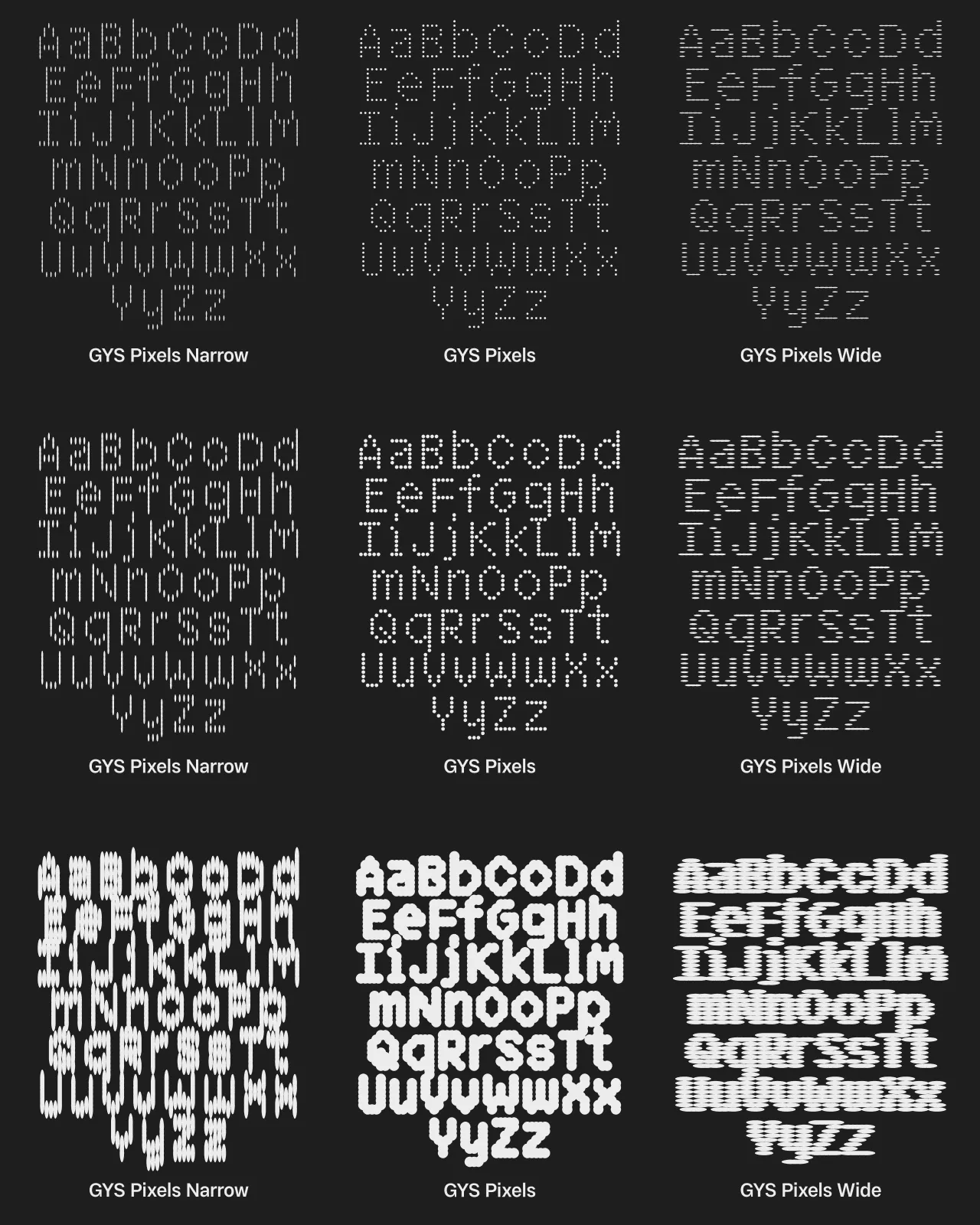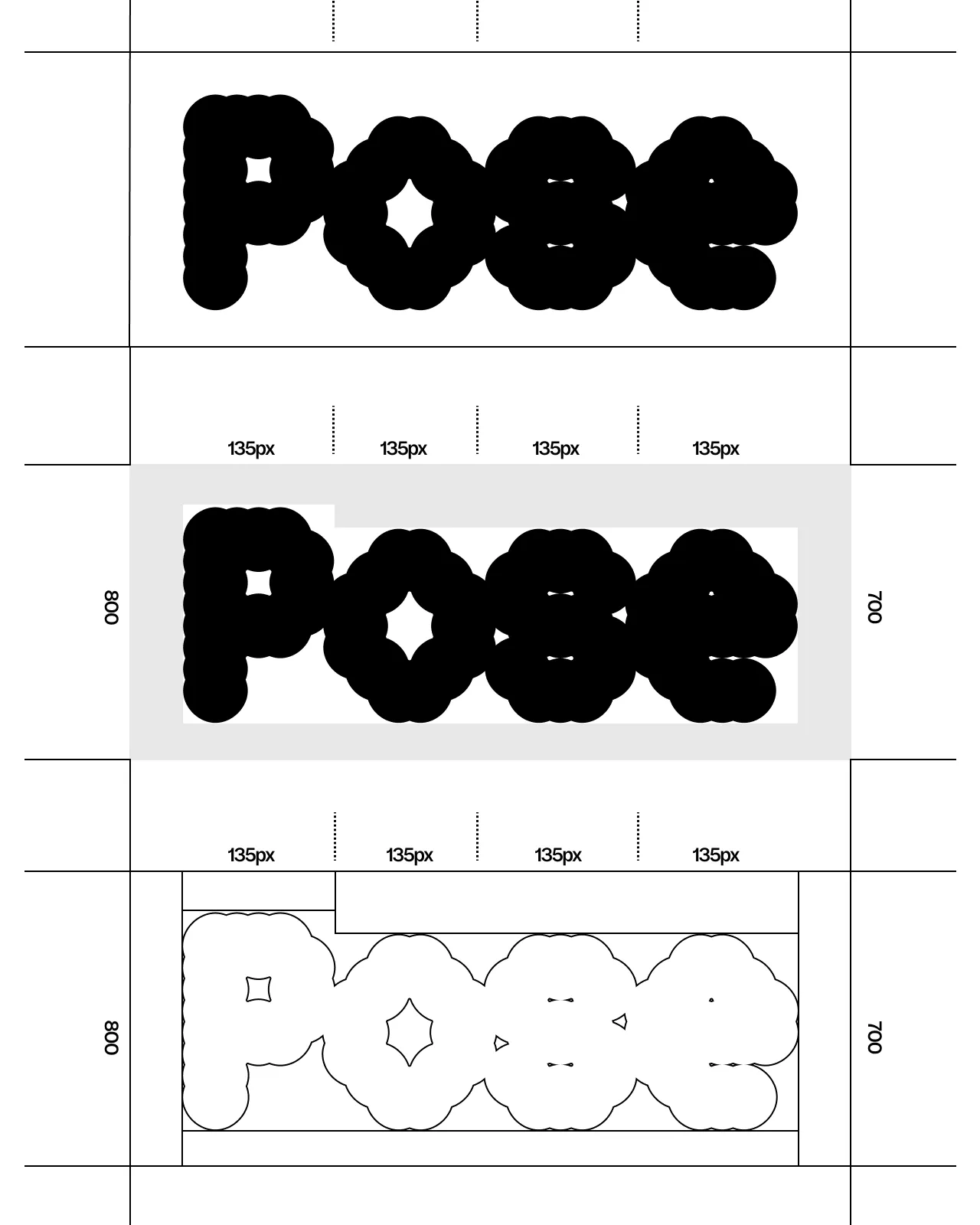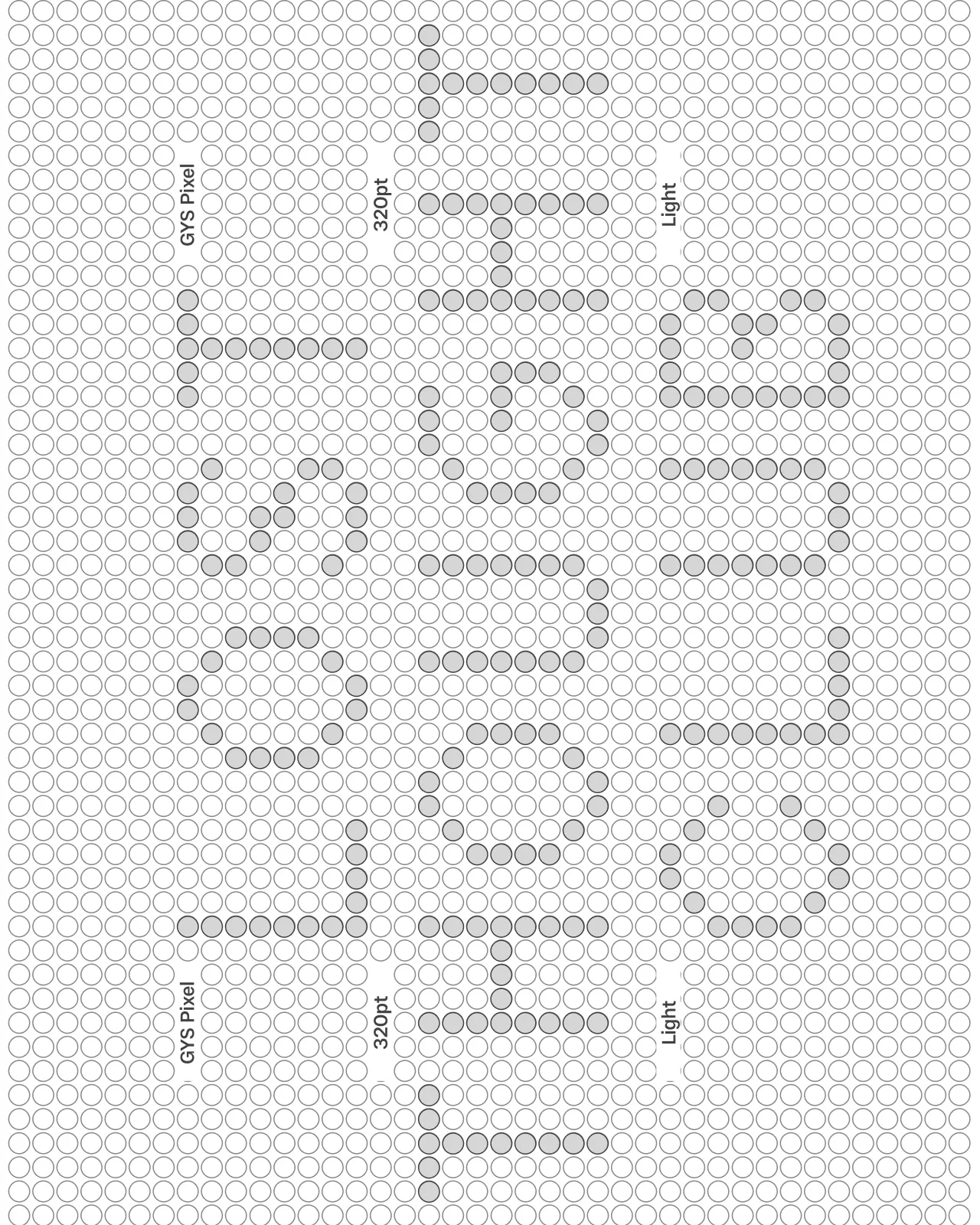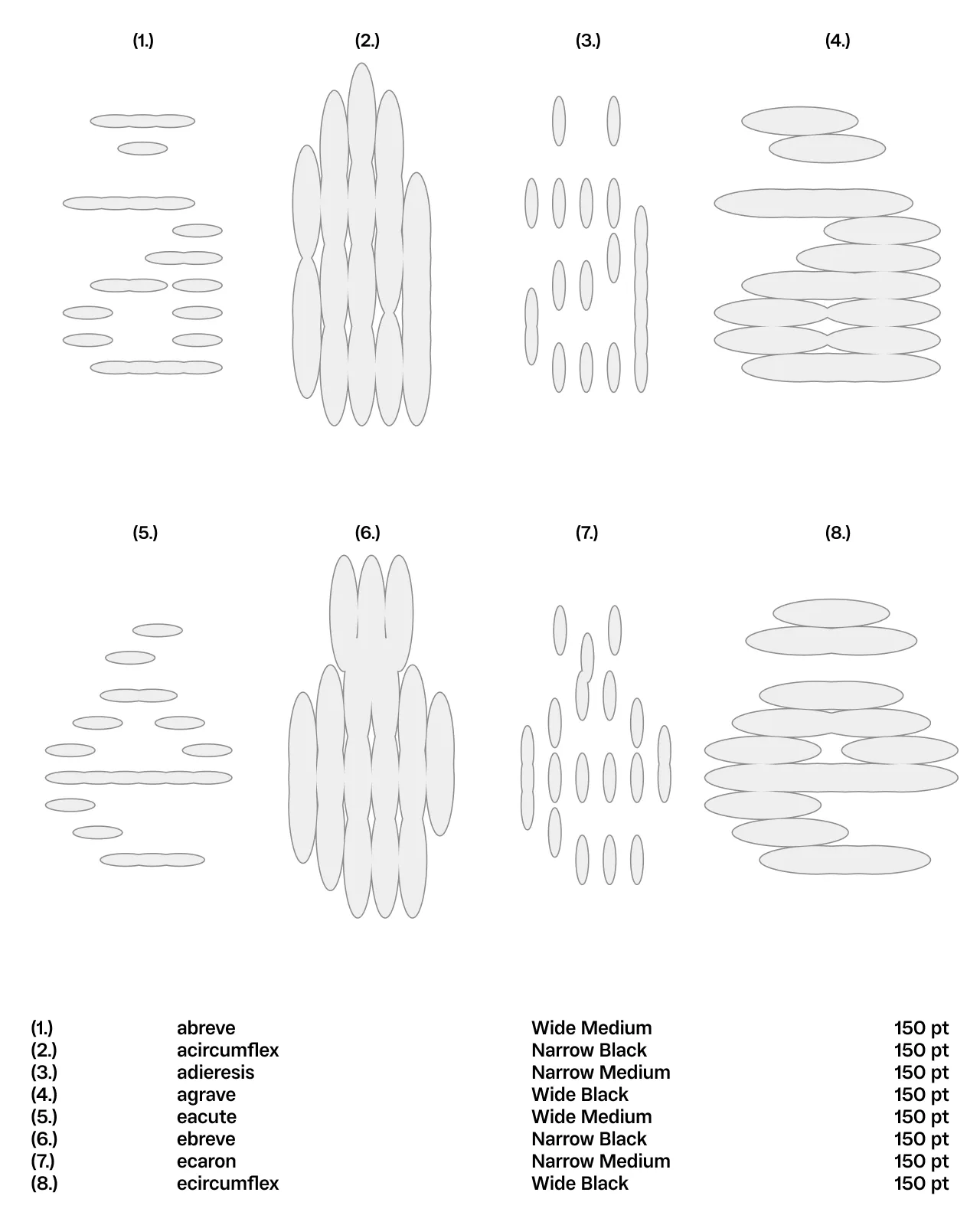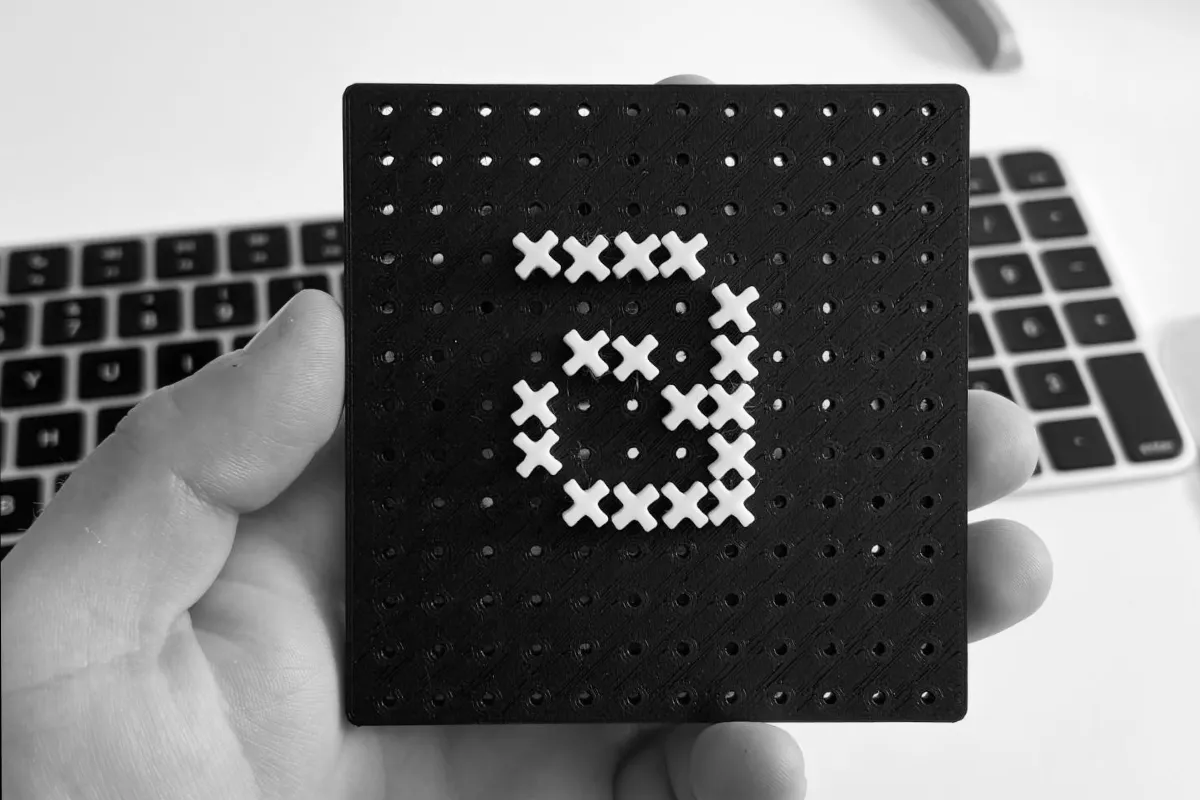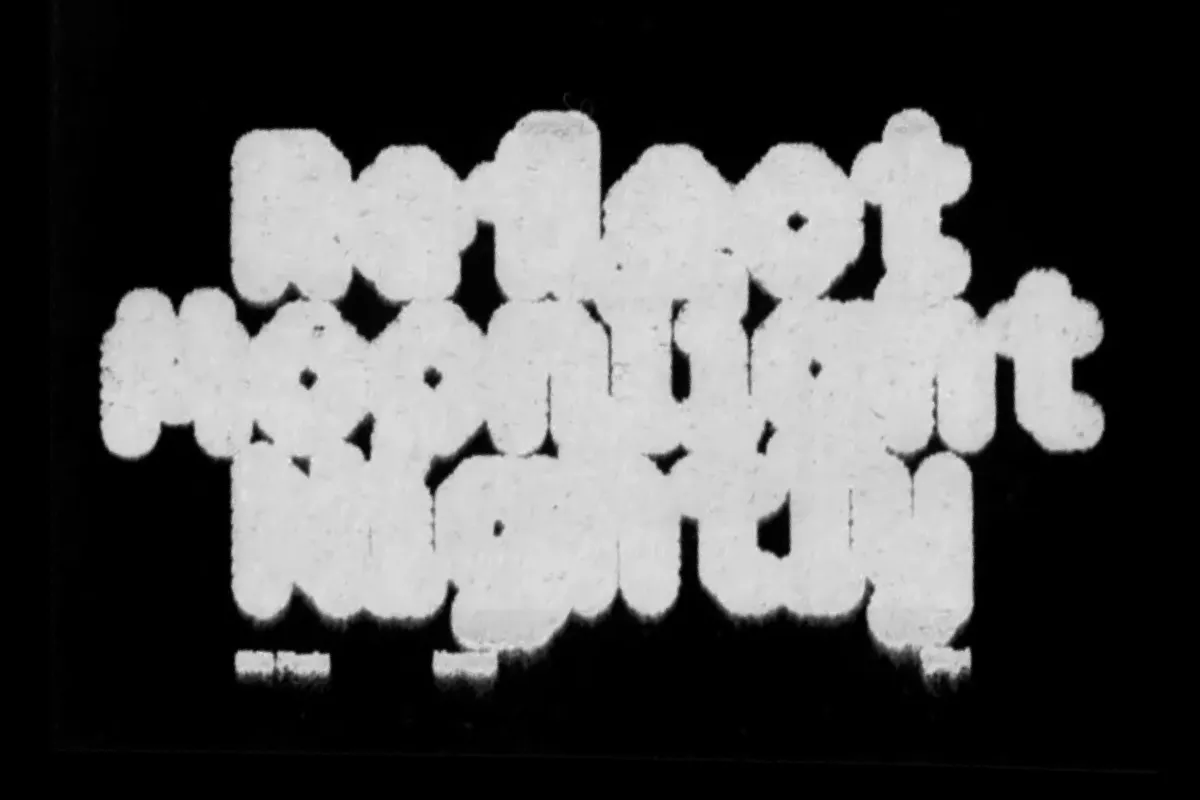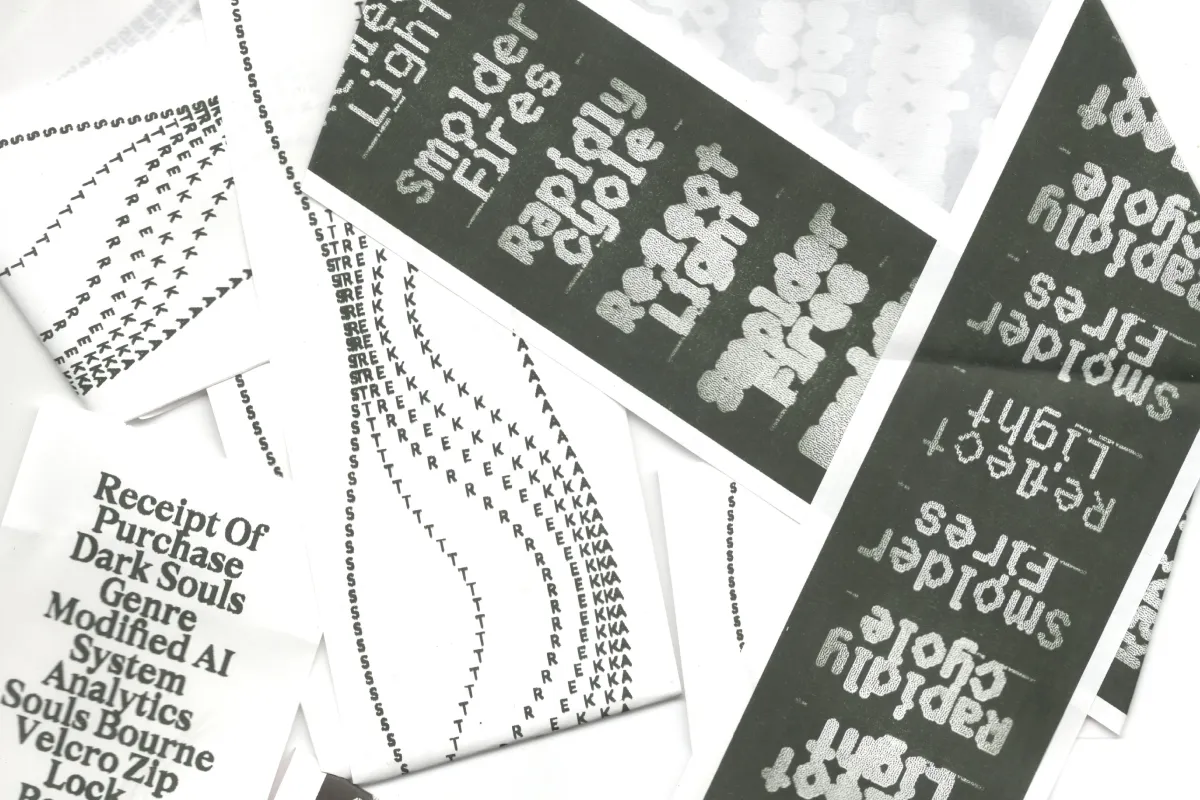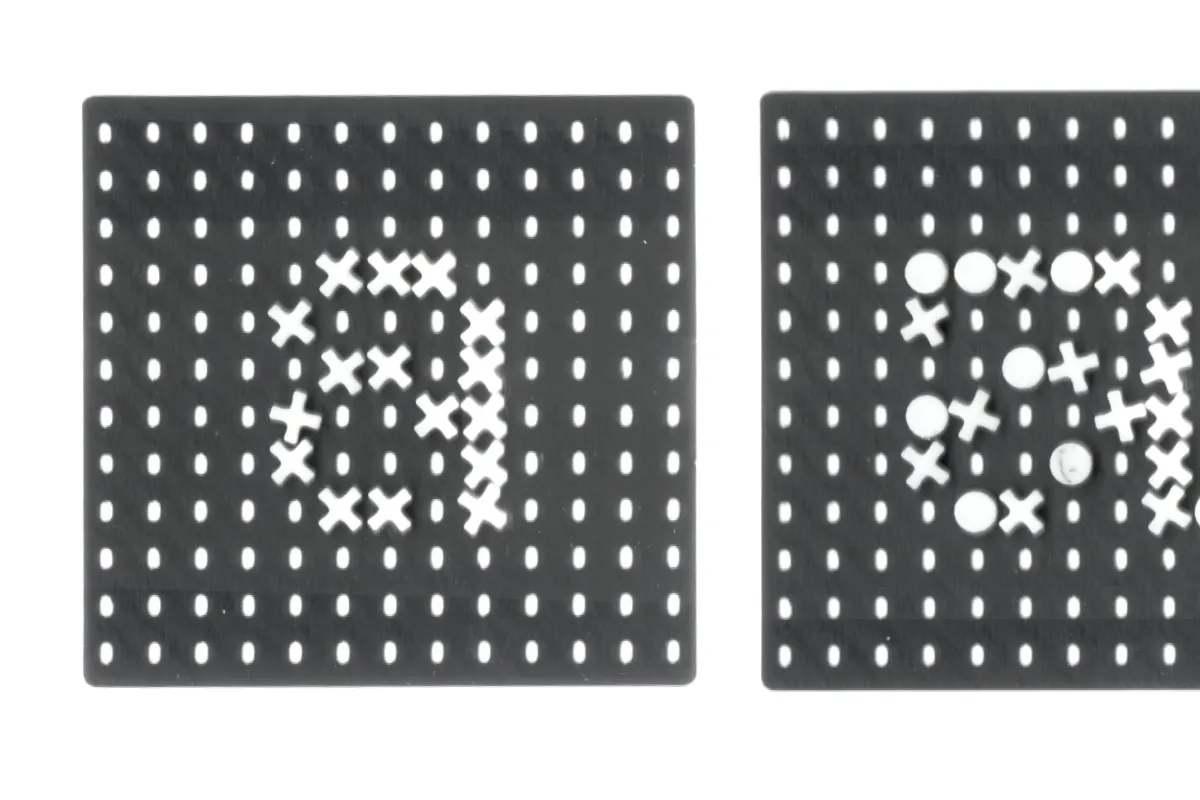
GYS Pixels
GYS Pixels is a free pixel font family in 27 styles, built around a simple idea: what happens when a well-structured typographic system is injected with something that does not quite belong? In this case, the cause of this visual interruption is a disproportionate pixel element. Across the family, it grows, shifts, and gradually takes over the letterforms. Each of the 27 styles captures a different stage of that process, from a barely visible sliver to an all-encompassing blob. Along the way, familiar letters begin to stretch beyond their expected proportions, creating shapes that sit somewhere between recognizable and ambiguous. As the pixel changes, the forms become increasingly distorted, stretched, and compressed around it. Familiar proportions start to disappear, counters change shape, and individual characters become more ambiguous.
The project first took shape as a physical, grid-based experiment: a 3D-printed board with a set of matching pins. It did not stay physical for long. The system quickly outgrew its original format and developed into a digital type family, where the idea could be pushed much further. GYS Pixels works as a collection of 27 individual styles and as a variable font with Weight and Width axes. The family includes extensive Latin and Cyrillic language support, alongside a broad set of OpenType features including case-sensitive punctuation, stylistic alternates, fractions, and more.
Designed primarily for display use, GYS Pixels works best when it has room to show its character: posters, titles, headlines, brand identities, and other large-scale typography. It is also the first free font family released by Groteskly Yours Studio. We see it as an introduction to the wider GYS collection (both visually and technically) and a small overview of the kind of systems, details, and experiments that run through our other releases. GYS Pixels is a free family for any use under the GYS Free Font License. For full details on permitted use, please refer to the accompanying EULA.